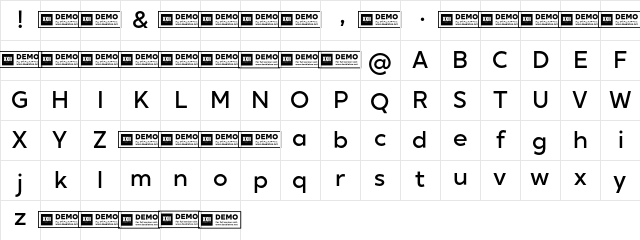
Complete XXII Geom DEMO Medium glyph index. Displaying only characters natively supported by XXII Geom DEMO Medium font.
XXII Geom DEMO is a composed and adaptable typeface that performs quietly and consistently across a wide range of design contexts.